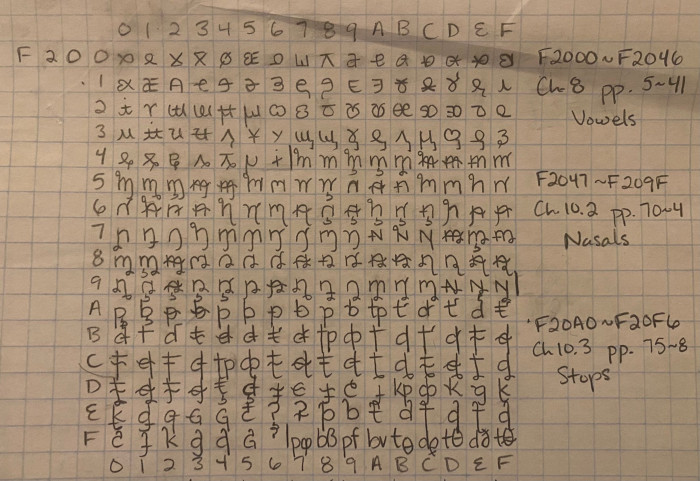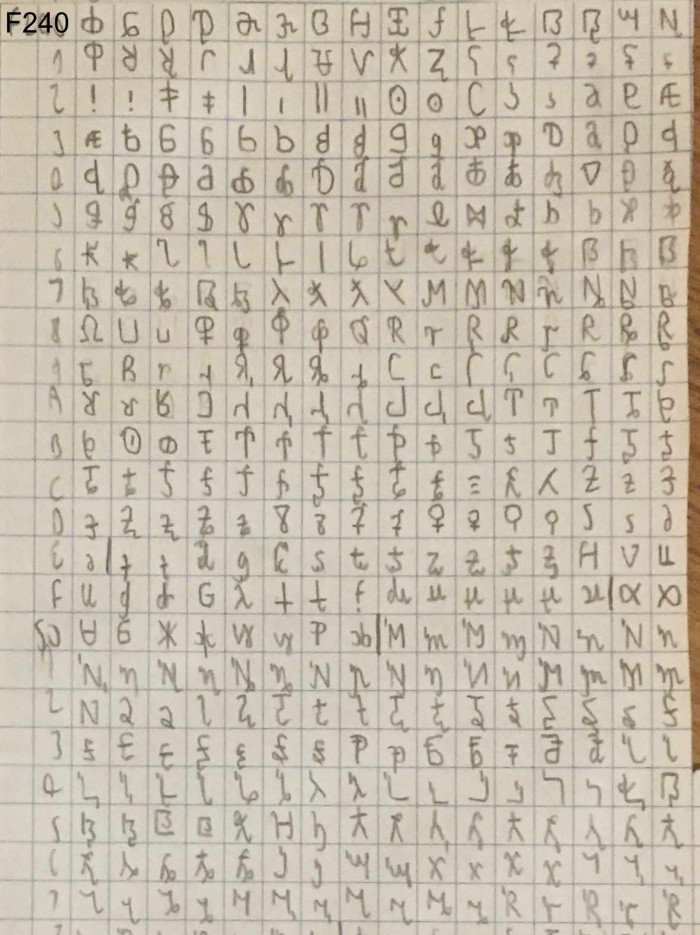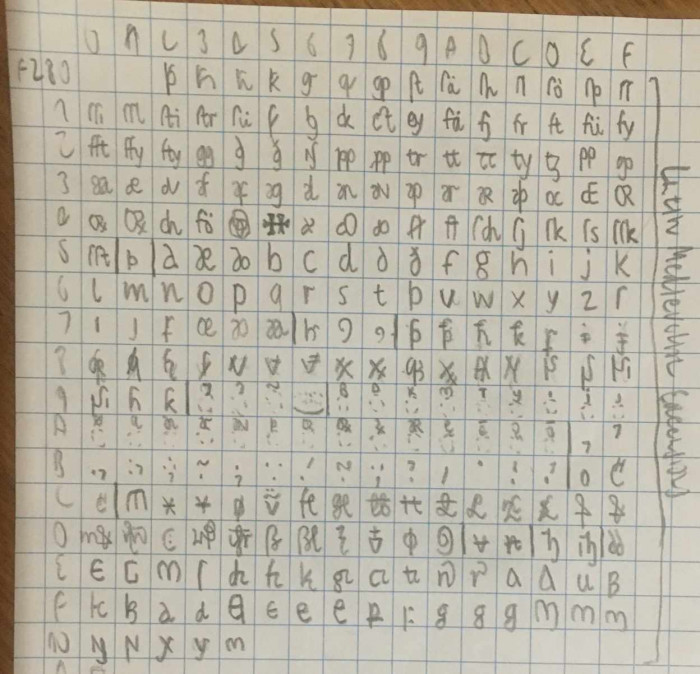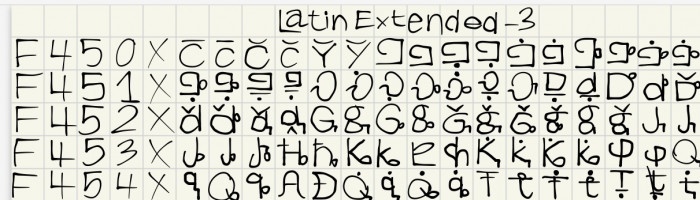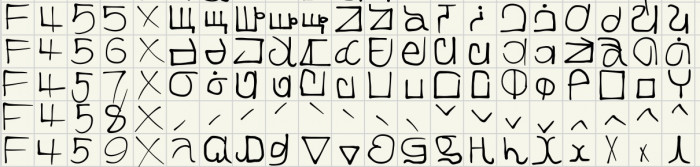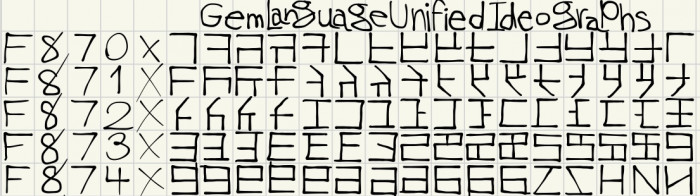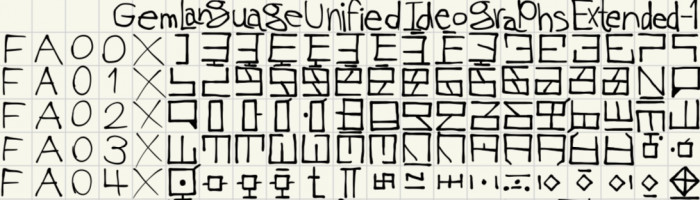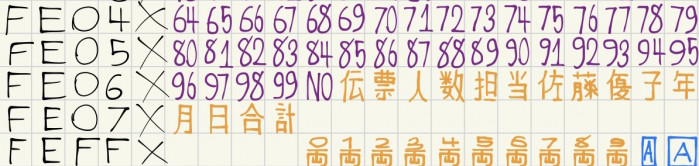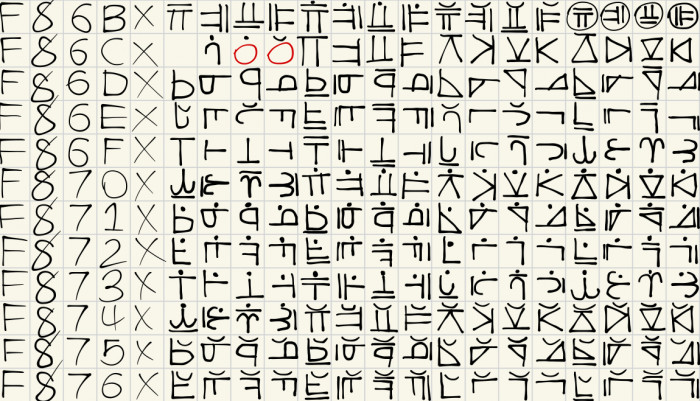
also, none of the characters show up in the preview
I'm not sure why none of the characters show up, though it may have the same root cause as the font not being a valid file.  If it is the addition of SMP characters, I'm not sure what I could really do....unless Meek fixes this, assuming it's something he can, and assuming it's an actual bug (which I think it is).
I'm not sure, but I will still be adding the canIPA glyphs just in case.
Not sure what's going on with my comments (sorry if this is duplicate information), but the space (0020) and the vowels of the canIPA (F2000~F2046) have been added.
I think the reason nothing shows up in the preview is because, when the render gets a list of characters to render, the codepoints are trunciated to the BMP (i.e. U+12345 is trunciated to U+2345), so it's tries to display those, but fails to display anything for that codepoint because it doesn't exist.
Does anyone know how to delete raw glyph data?  As in, this font shows there are 143 glyphs despite there being only 72.  I made a mistake with the canIPA and had to move it from one spot to another, leading to what I believe to be essentially a doubling of glyph count, since the raw data is still in those previous code points....
Added some nasals
Nasals and stops (everything up and including 10.3 in this pdf) are done
Added affricates (10.4)
Added 10.5 and 10.6
Added section 10.7 from the canIPA and a block of "fragments" which I think might be useful
Based on the description, the place where you put the fragments and Latin Orthographic Extensions-B appear to clash with the Kinya Syllables block (Range: U+F0000–F0E6F) in the (U)CSUR…
I may put the Kinya Syllables somewhere else if you'd like them encoded; perhaps 100000~100E6F
That should work for now… There are 3,696 possible syllables in Kinya (You can also encode Kinya (Range: U+E150-E1AF), if needed) U+E185-E18C (CSUR) are combining.
What are the fragments for?
The fragments are mostly for me to have a way to more easily copy paste the curves I want, rather than repeatedly manually constructing them.  They wouldn't be considered for Unicode.
Also, all basic phonemes for canIPA have been finished (appendix and diacritcs still to come), and more Latin orthographic extensions have been added
Done with the canIPA (finally), moved fragments, and added some more Latin orthographic/phonetic extensions
Added Camellian, Muric, and Djenpa (all conscripts to my knowledge, the last one my own).
For Djenpa, I wonder which letters are consonants, what letters make what sounds, syllable structure, phonotactics (what combinations of sounds are considered valid), etc…
I have a (somewhat outdated) page here with some of the basic stuff, although I haven't added a font in yet.  Essentially though, the script is split up into squares, triangles, curves, etc. for the consonants, and the vowels are strokes set inside them.  Syllables are CV or CVN primarily, with a few intricacies, and the nasal coda is indicated by a combining n character.  Numbers are made with the lines and squares in the middle, but some are combining and don't show up well in the preview.  The last few glyphs in that block are religious symbols.
Added Greek capital final sigma and reversed sigma (I've seen them in some places, I forget exactly where though), the (hopefully) rest of the canIPA symbols, and also some other punctuation stuff.
Edit: some canIPA punctuation that seems to me to be more general punctuation type stuff was added in the BMP PUA